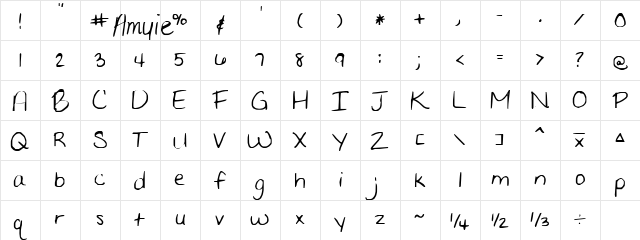
Amyie Hand
| Style | Hand |
| Foundry | Font Garden |
| Designer | Amyie fonted by Ellinor Rapp |
Design Context for Amyie Typeface
Amyie flows with the natural rhythm of handwritten lettering, making it ideal for designs that call for warmth and personal expression.